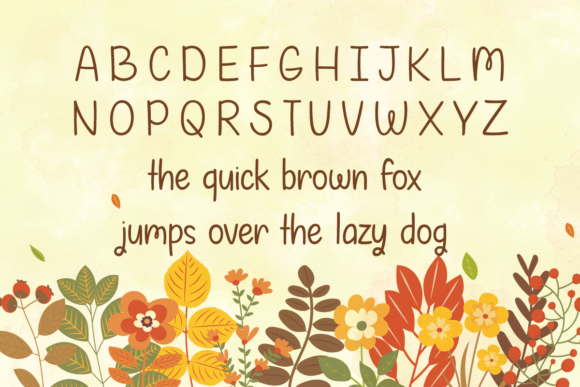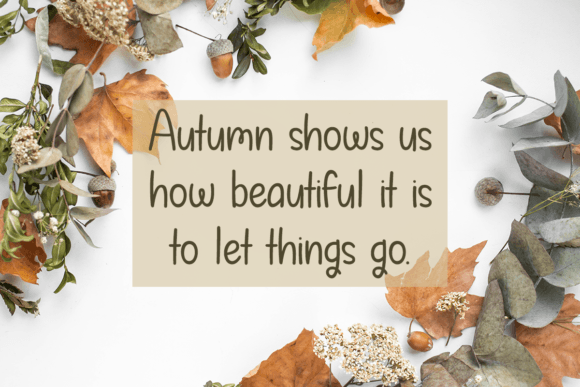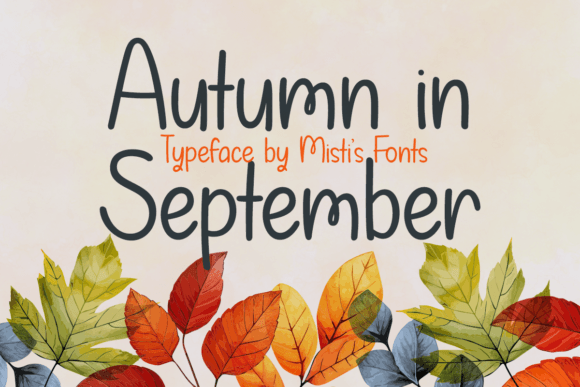
Discover the Charm of “Autumn in September” Font: A Perfect Addition to Your Fall-Inspired Projects
As the leaves begin to change and the air grows crisper, our creative projects deserve a font that captures the cozy essence of autumn. Introducing “Autumn in September,” a charming handwritten font that brings a warm, inviting feel to any design. With its playful curves and gentle strokes, this font is perfect for adding a touch of seasonal charm to invitations, greeting cards, social media graphics, and more.
The Inspiration Behind “Autumn in September”
The “Autumn in September” font is inspired by the nostalgia of crisp autumn leaves and the joy of handwritten notes. Its casual yet stylish design makes it versatile for both whimsical and elegant applications, allowing designers and crafters to add a dash of seasonal cheer to their creative work. Whether you’re designing a fall-themed invitation, a social media graphic, or a handmade craft, this font is sure to evoke the warmth and coziness of the season.
Key Features of “Autumn in September” Font
• Handwritten style: The “Autumn in September” font boasts a beautiful, handwritten style that adds a personal touch to any project.
• Playful curves and gentle strokes: The font’s playful curves and gentle strokes give it a warm, inviting feel that’s perfect for fall-inspired designs.
• Casual yet stylish: The “Autumn in September” font strikes the perfect balance between casual and stylish, making it suitable for a wide range of applications.
• Versatile: Use this font for invitations, greeting cards, social media graphics, and more to add a touch of seasonal charm to your designs.
Whether you’re a professional designer or a crafty DIY enthusiast, the “Autumn in September” font is a great addition to your creative toolkit. Designers can use this font to create stunning fall-themed graphics, while crafters can use it to add a personal touch to their handmade projects, such as:
• Fall-themed party invitations
• Handmade greeting cards
• Social media graphics
• DIY crafts, such as signs, banners, and decorations
Tips for Using “Autumn in September” Font
To get the most out of the “Autumn in September” font, here are a few tips:
• Pair with complementary fonts: Combine “Autumn in September” with other fonts that complement its playful, handwritten style.
• Use warm color schemes: Choose warm, autumnal colors like orange, yellow, and red to enhance the font’s cozy feel.
• Experiment with textures: Add texture to your designs with subtle patterns or backgrounds that evoke the feeling of fall, such as leaves or wood grain.
The “Autumn in September” font is a charming addition to any design project that captures the cozy essence of fall. With its playful curves and gentle strokes, this font brings a warm, inviting feel to any creative work. Whether you’re a designer or a crafter, this font is perfect for adding a touch of seasonal charm to your projects. So why not give it a try and see how it can enhance your fall-inspired designs?